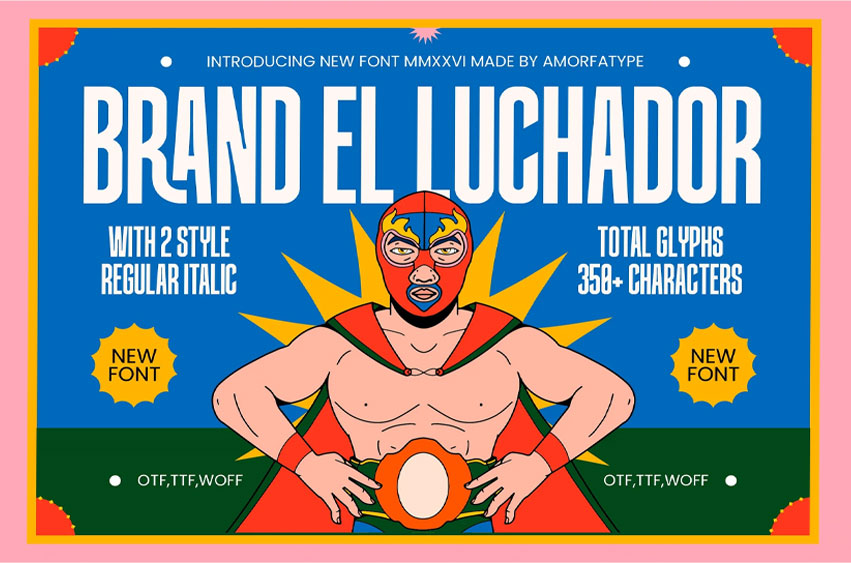
Brandel Luchador Font
Brandel Luchador Font is a bold tall condensed sans serif display typeface built with strong vertical proportions, compact structure, and striking visual impact. Designed to command attention, Brandel Luchador blends classic condensed typography with retro street poster aesthetics, making it ideal for bold branding, posters, signage, packaging, editorial headlines, and statement-driven designs.
With its narrow letterforms, solid strokes, and energetic rhythm, Brandel Luchador delivers a powerful balance between vintage poster style and modern display typography. It’s crafted for designers who want strong presence, clear readability, and expressive character in their visual work.
Brandel Luchador combines tall condensed structure with expressive OpenType features, creating a display font that feels bold, dynamic, and visually commanding.
• ✨ Tall Condensed Display Style – Perfect for logos, posters, branding, packaging, editorial titles, and strong visual graphics.
• ⚡ Retro Poster Inspiration – Influenced by vintage street posters and bold condensed typography.
• 🔠 Expressive Typography – Built with strong vertical rhythm and impactful letterforms for headline use.
• 🖨️ Optimized for Print & Digital – Clean outlines ensure clarity across various media and sizes.
• 🔡 OpenType Features: 40 Ligatures & 13 Stylistic Alternates
• ✏️ Total Glyphs: 383 Characters
• 🌍 Multilingual Support – Extended Latin character set included
Create bold headlines and powerful visual identities with Brandel Luchador — a tall condensed sans serif display font designed to stand strong, loud, and unforgettable.